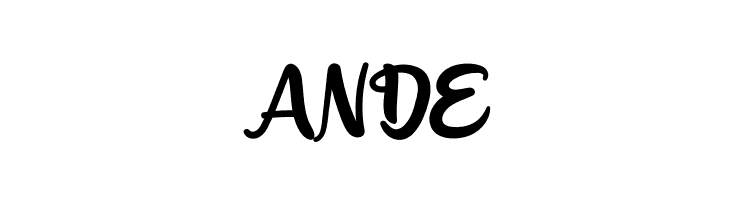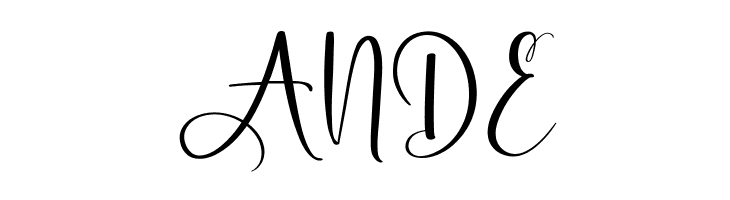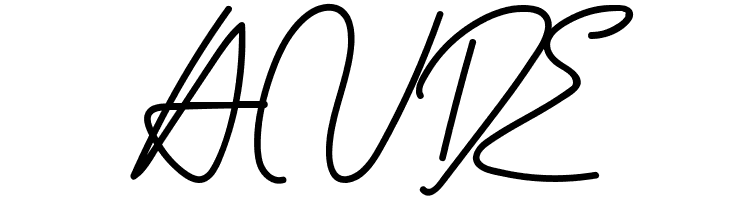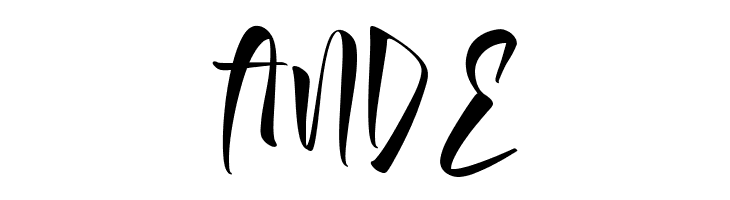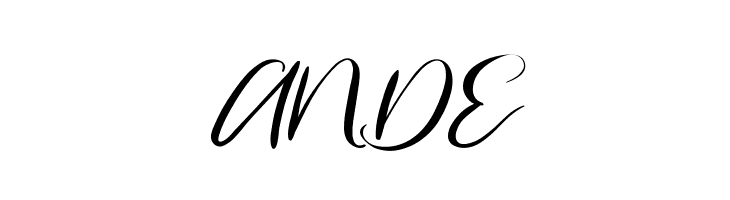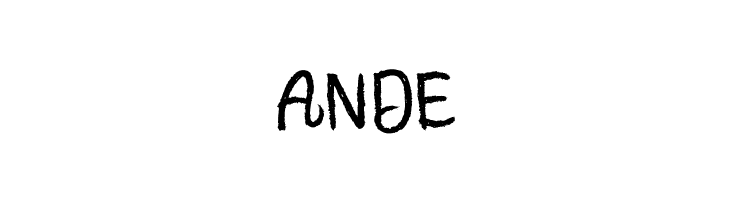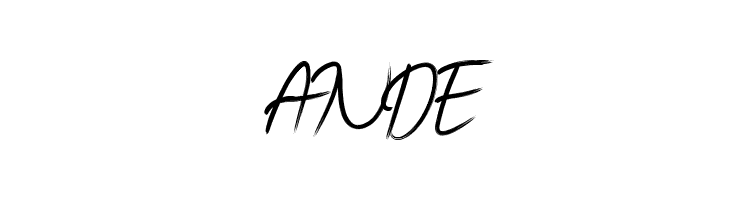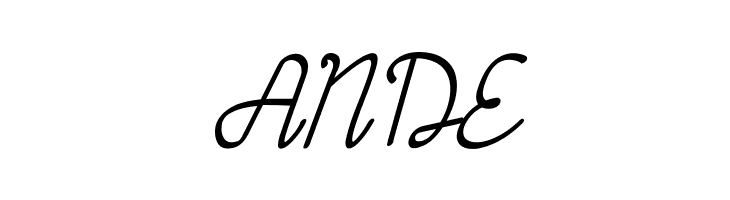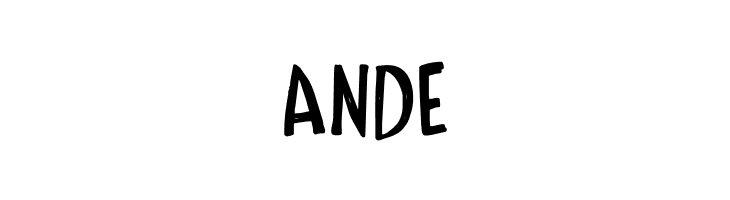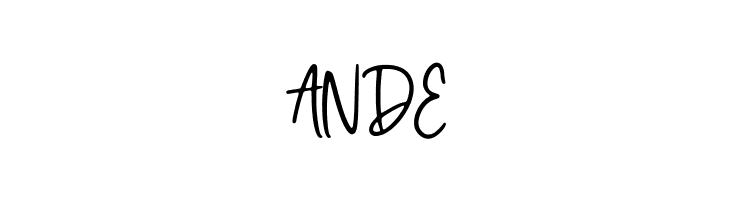
A bold, jagged font with an aggressive, scratched appearance.
Thin, airy handwritten script with tall, narrow forms.
A lively, expressive handwritten font with fluid strokes and playful curves.
A bold, slab serif font with a strong, impactful presence.
A bold, edgy font with sharp angles and high contrast.
A lively, cursive script font with fluid, interconnected characters and varying stroke widths.
A lively and expressive handwritten font with dynamic strokes.
An elegant script font with flowing, cursive letterforms and graceful swashes.
A bold, graffiti-inspired font with sharp, angular lines and an urban aesthetic.
A playful, flowing script font with elegant curves and medium contrast.
A whimsical and flowing script font with elegant, interconnected letterforms.
A modern, geometric font with thin, continuous lines and artistic flair.
A bold, expressive brush-style font with a hand-painted appearance.
A dynamic and expressive handwritten font with fluid, cursive strokes.
A playful, bold handwritten font with a dynamic and informal style.
A pixelated, retro-style font with a bold, digital appearance.
A decorative, hand-drawn font inspired by traditional sailor tattoos.
A bold, decorative font with a vintage tattoo style.
A bold, decorative font with a vintage tattoo-inspired style.
A bold, decorative font with a tattoo-inspired, nautical aesthetic and italic slant.
A fluid and elegant handwritten font with thin, graceful strokes.
An elegant cursive font with flowing, ornate letters and graceful connections.
A bold, angular font with a geometric and modern design.
A dynamic, cursive font with flowing, handwritten style and elegant loops.
A dynamic script font with fluid, elegant strokes and a modern calligraphic style.
An elegant, cursive font with intricate swirls and loops.
An elegant, decorative script font with flowing, interconnected letters and elaborate swashes.
A modern, elegant script font with high contrast and flowing strokes.
A bold, handwritten-style font with rounded strokes and a playful, fluid appearance.
A graceful, high-contrast script font with a handwritten, calligraphic feel.
A decorative, italic script font with a refined, handwritten appearance.
An elegant script font with decorative swashes and flowing curves.
An elegant, flowing script font with intricate, decorative letterforms.